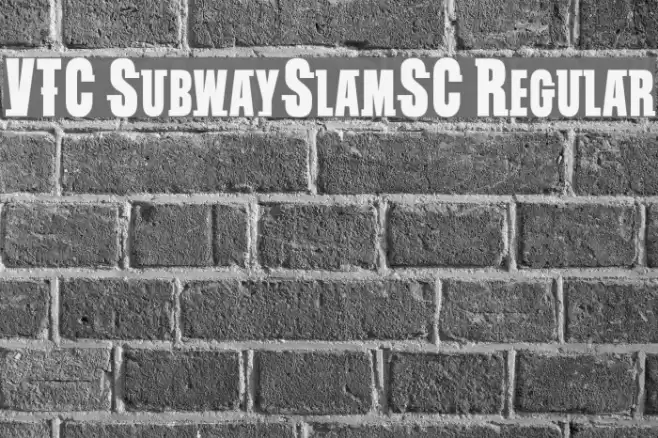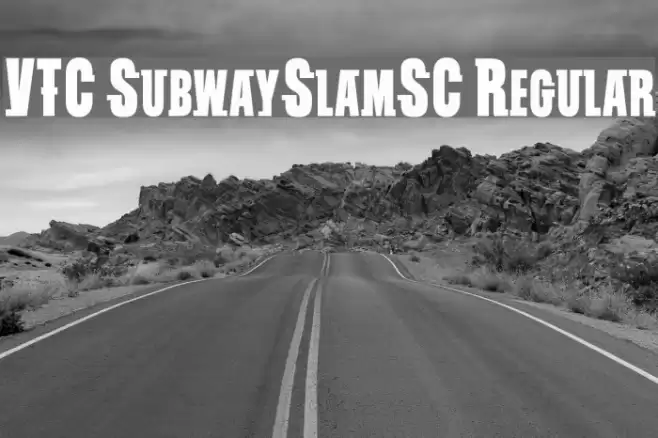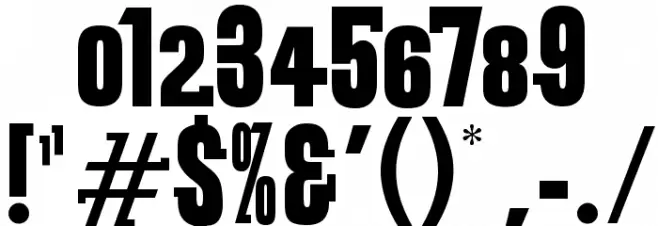
VTC SubwaySlamSC Regular Font
VTC SubwaySlamSC Regular Description
This bold and impactful font features thick, blocky letters with a strong presence. The uppercase and lowercase characters maintain a consistent weight, creating a cohesive look. The numbers and special characters are equally robust, ensuring visibility and readability. The font's design is reminiscent of urban and industrial themes, making it suitable for projects that require a bold statement. Its solid structure and high contrast between strokes make it stand out in any application.
A bold, blocky font with strong, urban-inspired design from Uncategorized fonts.
- Proposed Projects: Ideal for posters, headlines, branding, and any project needing a bold, impactful typeface.